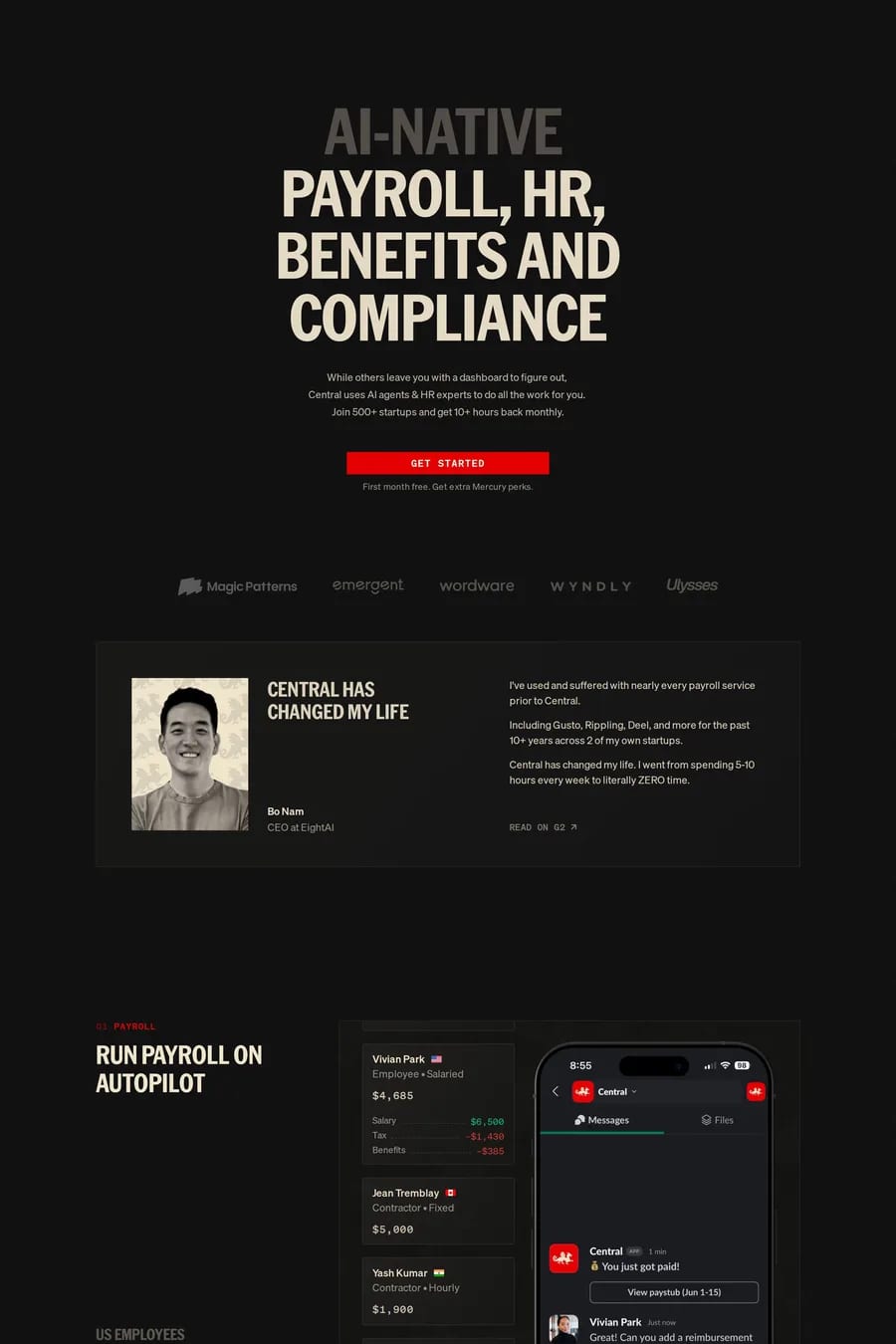
American Grotesk is a sans-serif typeface from Klim Type Foundry.
American Grotesk® is a reprisal of Franklin Gothic, which has staked its place as a key part of American graphic vernacular history, notably in persuasive communication. American Grotesk® appears in a time when truths, half-truths, lies, fiction or entertainment seem interchangeable, resulting in a culture of personal truths. Compounded by the rapid growth of generative artificial intelligence, our ability to index authority, authorship and authenticity are being redefined through the lens of a new and uncanny form of Americana.